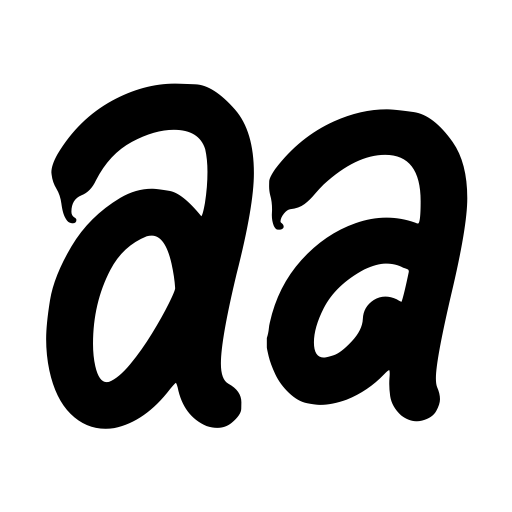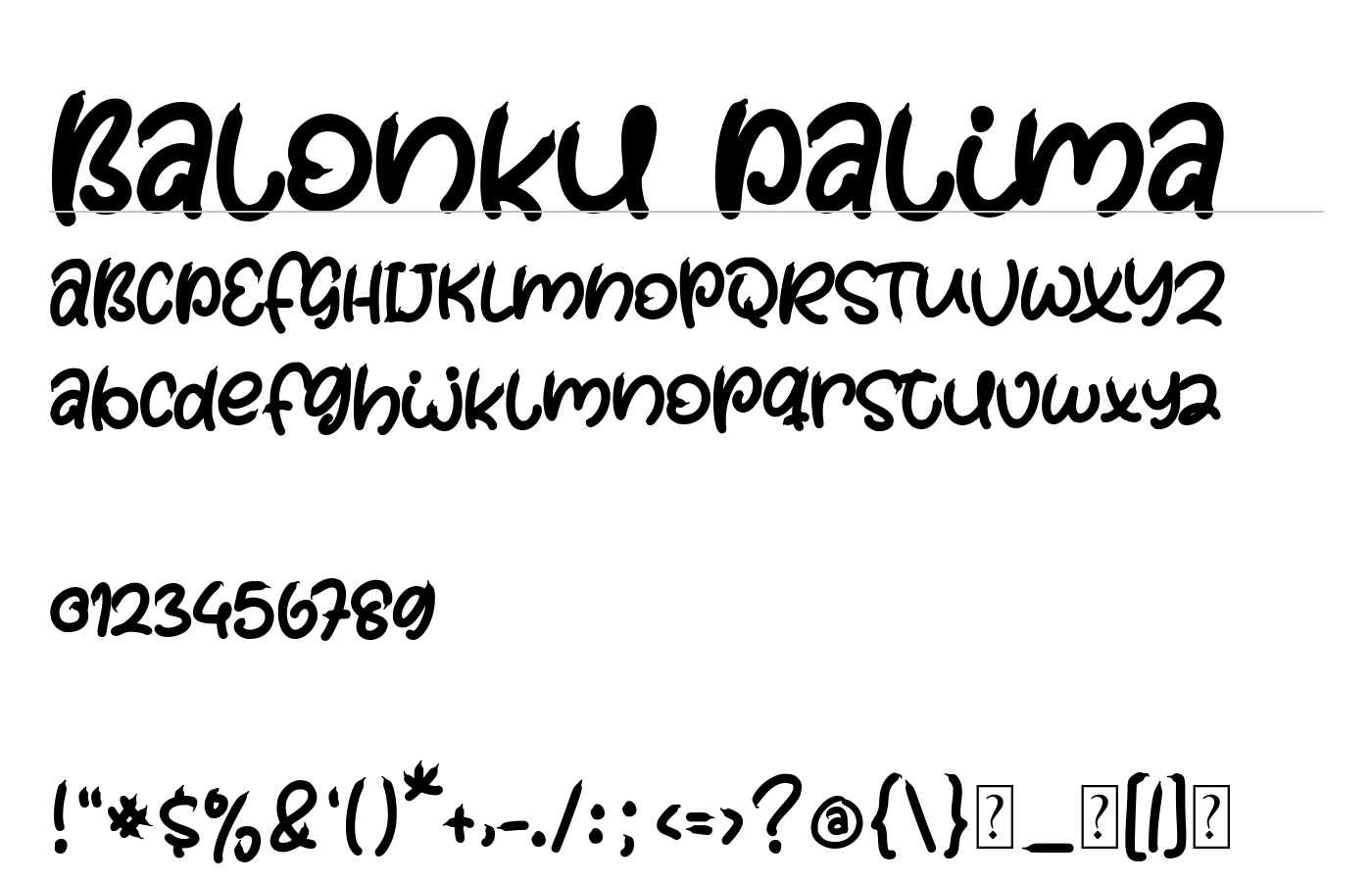
Balonku Dalima is a playful and expressive handwritten script font with a bold weight and rounded, lively strokes that give it a casual, friendly vibe. Its tall x-height and quirky letterforms make it highly readable while maintaining a fun, informal personality, making it perfect for creative projects, children's designs, and branding that seeks a warm, approachable feel. This font works well for headlines, logos, and packaging where a unique, hand-crafted look is desired.
Balonku Dalima Font
About Balonku Dalima Font
| Font family | Balonku Dalima Font |
| Designer | Muh Aswar By Azetype Studio |